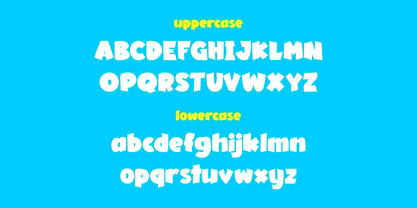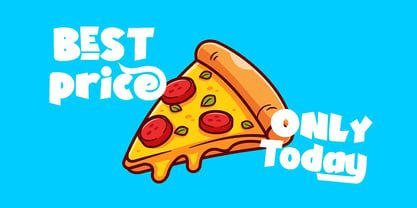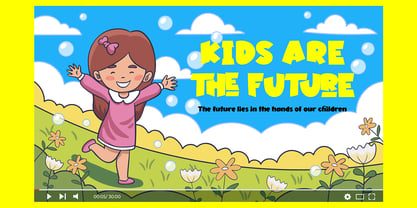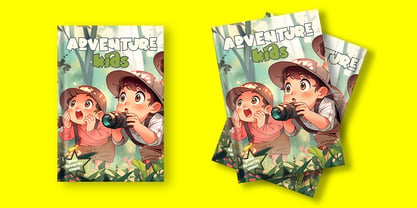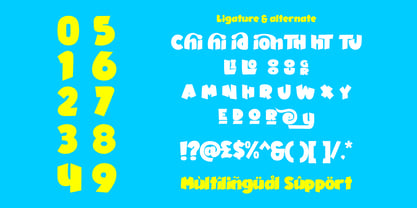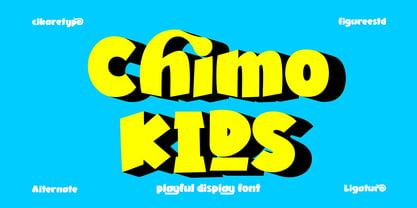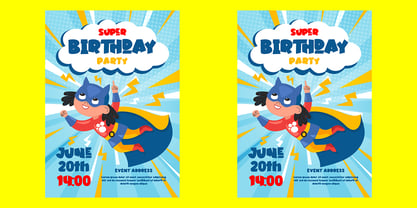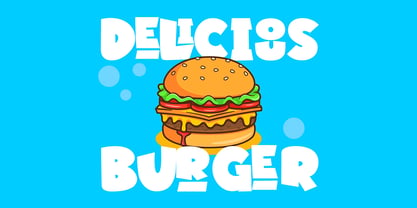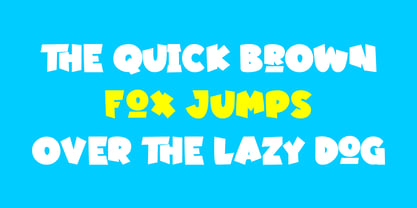
Chimo Kids
by Sipanji21
The Chimo Kids Font Family was designed by Sipanji and published by Sipanji21. Chimo Kids contains 1 styles. More about this family
Chimo Kids is a delightful and playful display font designed to bring joy, creativity, and a sense of fun into every project. Inspired by the spontaneous charm of children’s handwriting and doodles, this typeface features soft, rounded shapes and slightly irregular forms that create a warm and friendly personality. Each letter feels alive and expressive, making it perfect for designs that aim to capture imagination, innocence, and happiness. One of the standout features of Chimo Kids is its rich set of stylistic alternates. These alternates allow you to mix and match different letterforms, giving your typography a more dynamic and natural look. Instead of repeating identical characters, you can create text that feels more organic and less mechanical, just like real handwriting. This flexibility makes the font especially suitable for branding, packaging, and creative layouts where uniqueness and variation are key. Chimo Kids works beautifully across a wide range of applications, including children’s books, educational materials, toy packaging, posters, social media graphics, birthday invitations, and playful branding projects. Its readability ensures that messages remain clear while still maintaining a fun and decorative appeal. Whether you are designing for kids or simply want to add a cheerful and approachable touch to your work, Chimo Kids offers the perfect balance between legibility and personality. With its cute aesthetic, versatile alternates, and lively character, Chimo Kids is more than just a font—it’s a tool for storytelling and creativity. It invites designers to explore a more whimsical side of typography, making every word feel friendly, engaging, and full of life.
Designers: Sipanji
Foundry: Sipanji21